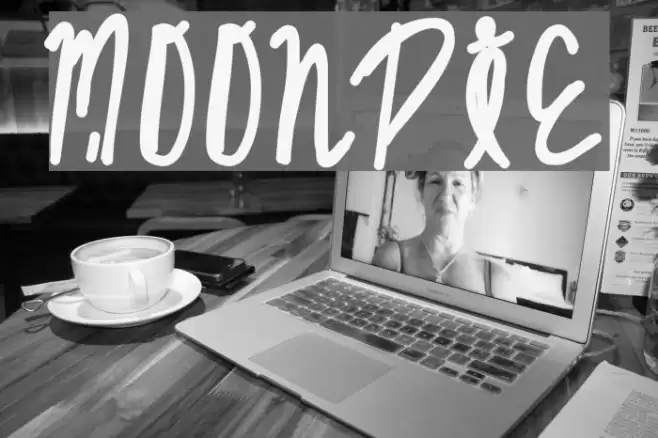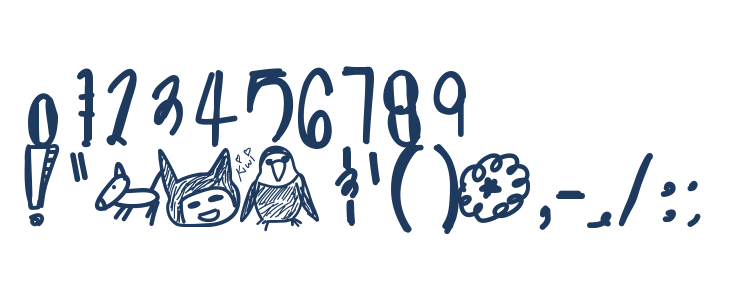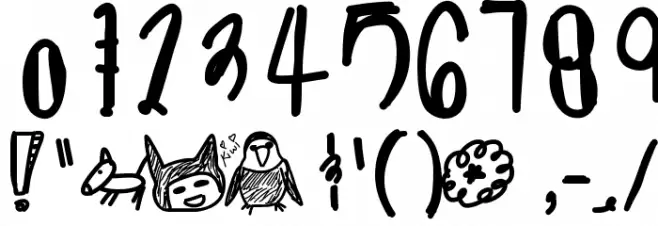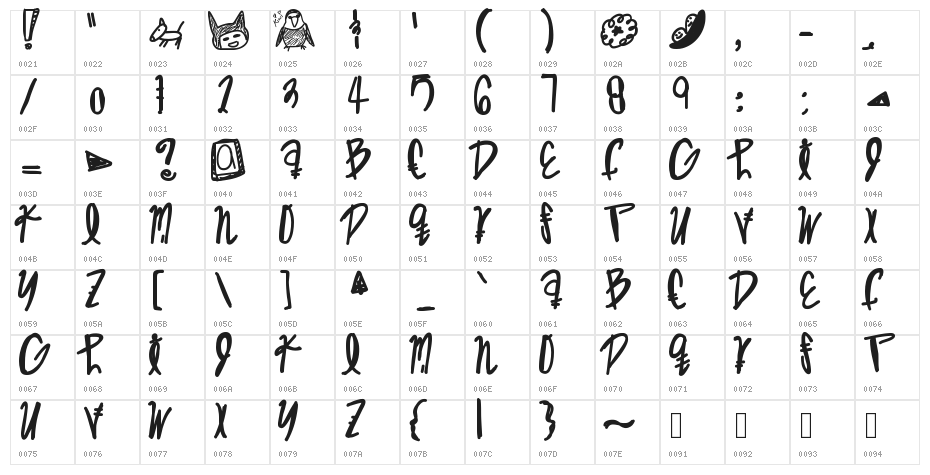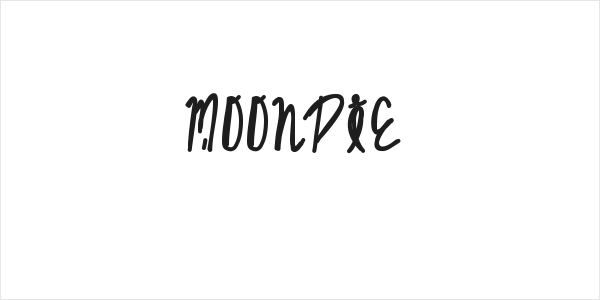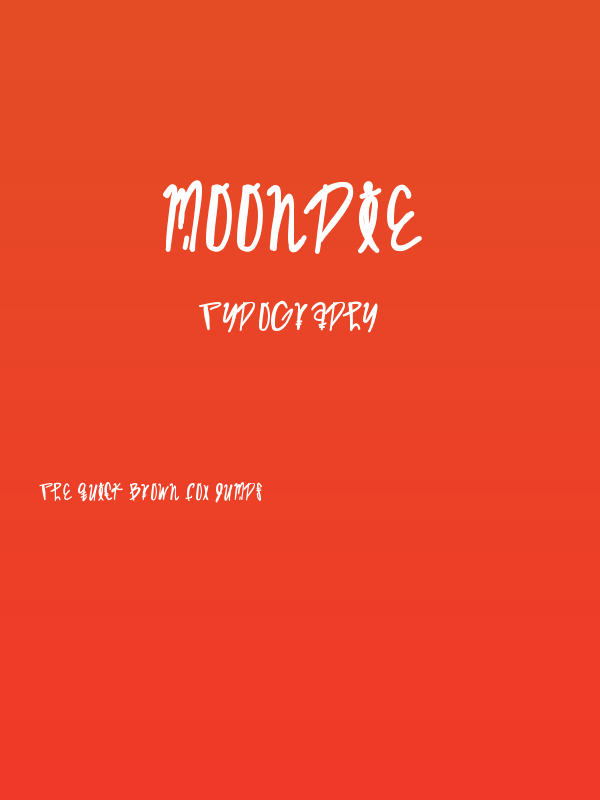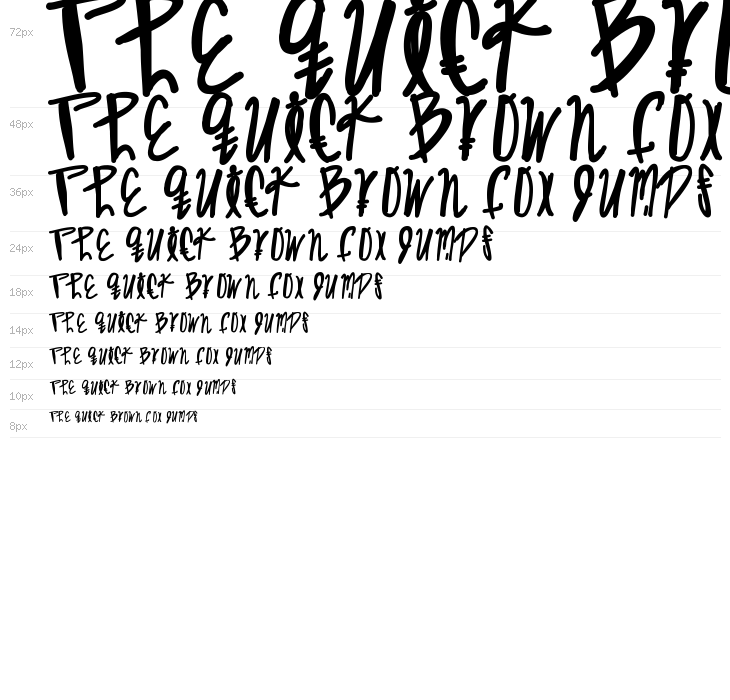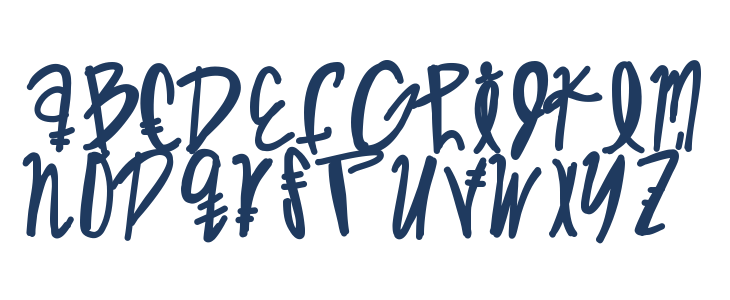
MoonPie Font
MoonPie Description
This font exhibits a playful and whimsical style, characterized by its hand-drawn appearance and irregular strokes. The letters are bold and feature a unique blend of curves and sharp angles, giving it a lively and dynamic feel. The uppercase and lowercase letters maintain a consistent style, with a noticeable tilt that adds to its informal charm. Numbers and special characters follow the same playful design, making it suitable for creative and artistic projects. The overall look is reminiscent of doodles or sketches, perfect for conveying a sense of fun and creativity.
A playful, hand-drawn font with bold, irregular strokes and a whimsical style from Uncategorized fonts.
- Proposed Projects: Ideal for children's books, comic strips, playful branding, and creative posters.